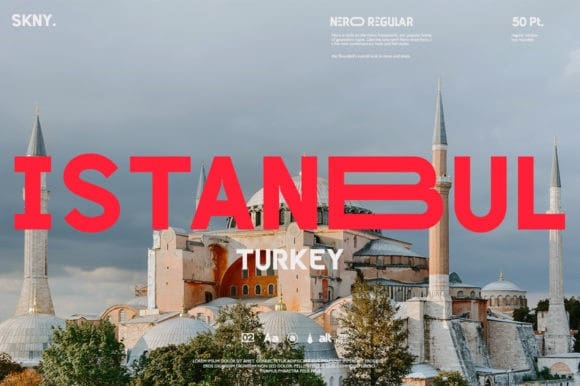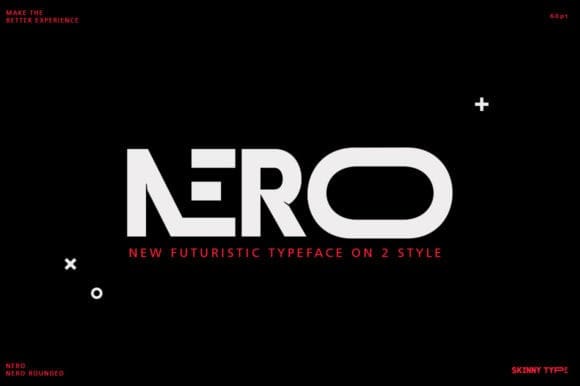
Nero Font
Nero Font is built on the Nero framework, our popular family of geometric types. Like the sans-serif Nero letterform, it has two contemporary look and feel styles. Echoing late 20th-century modernism, the Rounded’s overall look is clean and sleek, more ephemeral and dynamic than pared-down bourgeois asceticism.
Nero’s place in font history is a complex one. Praised for their readability and also at the same time their fashionable qualities, they look very modern and nostalgic, easy to read and very stylish, authoritative and fun. Nero and Nero Rounded when combined, offer 2 styles to suit all text types and sizes. Both are excellent for short texts that require a sense of urgency or playfulness.